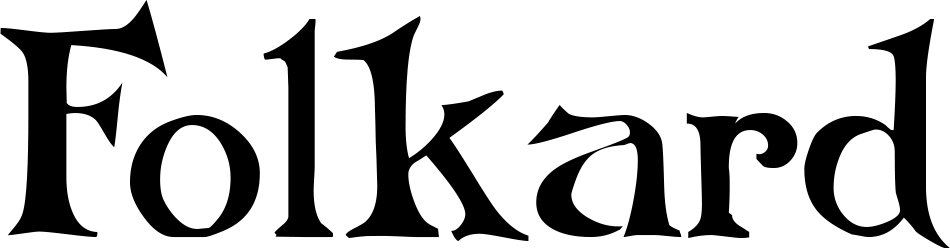
Folkard Font
Designed byThe Scriptorium
Folkard is a special font that can be used in different situations. If you are into fairytale fonts, you shouldn’t miss this one at all. The characters with curly style give a friendly vibe. Show your text designs in a fancy way and impress anyone at a glance.